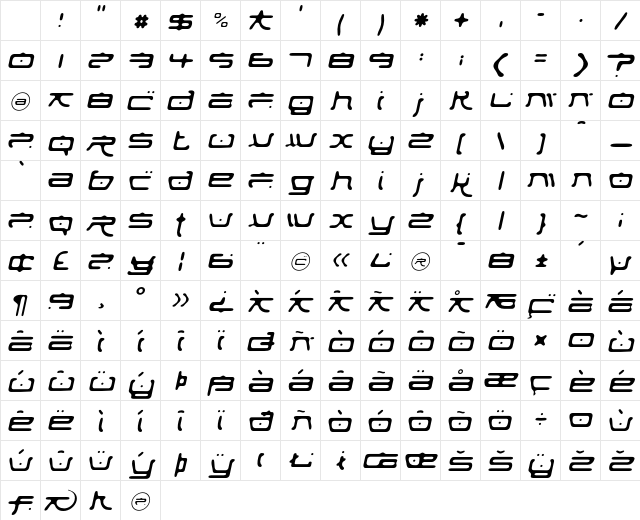
Fufanu is a composed and adaptable typeface that performs quietly and consistently across a wide range of design contexts. The slanted form adds forward momentum and visual energy.